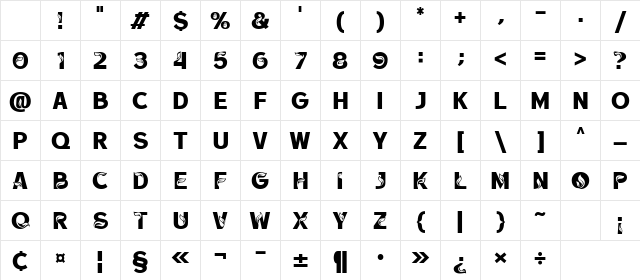
Complete Grow West Regular glyph index. Displaying only characters natively supported by Grow West Regular font.
Grow West is a composed and adaptable typeface that performs quietly and consistently across a wide range of design contexts.
Pro Tip: Use Grow West in both headline and body roles to test its range before committing to a single application.